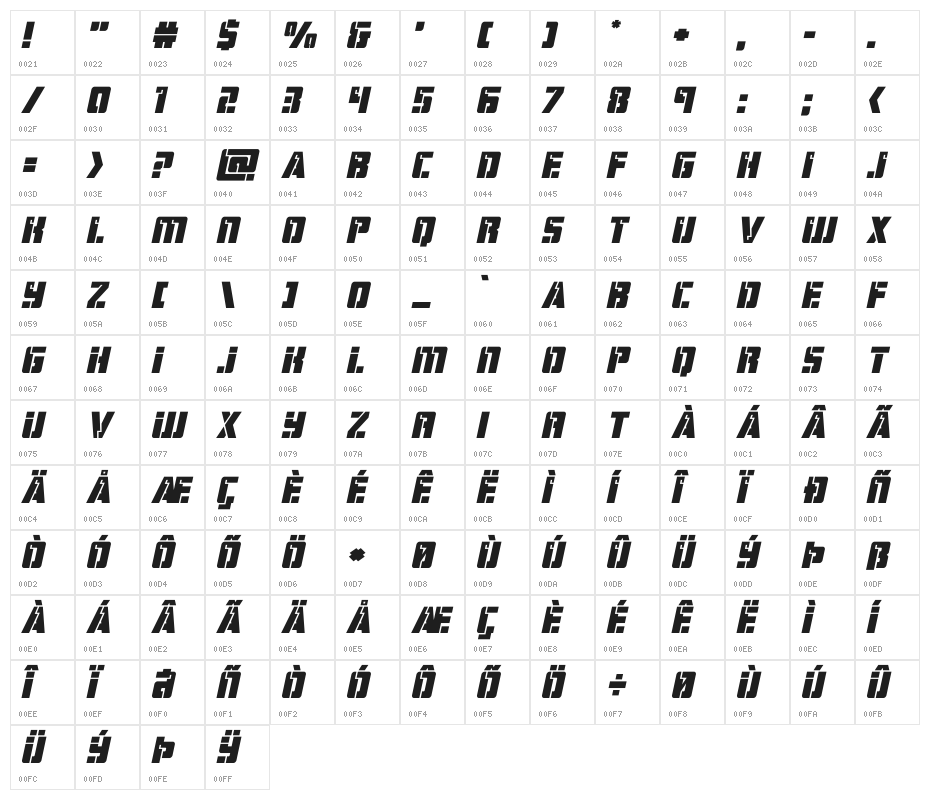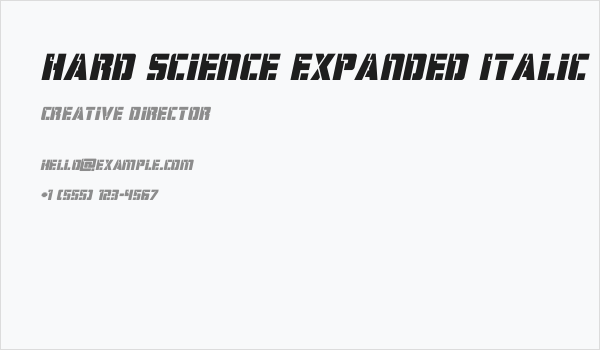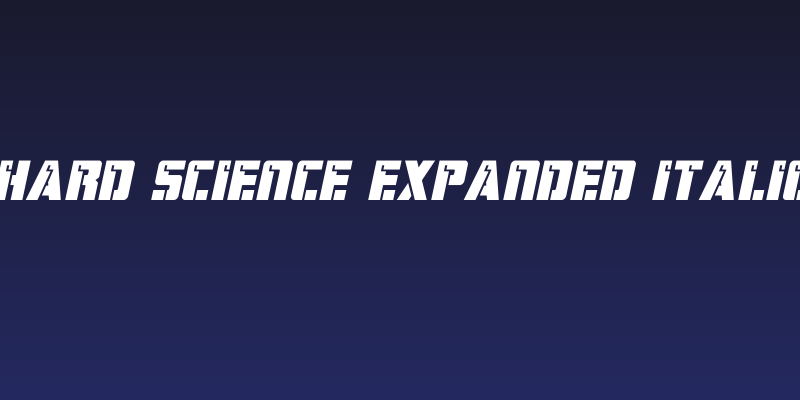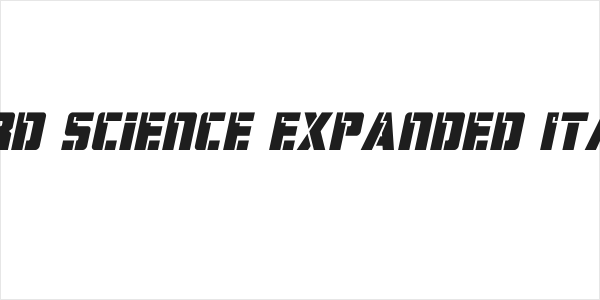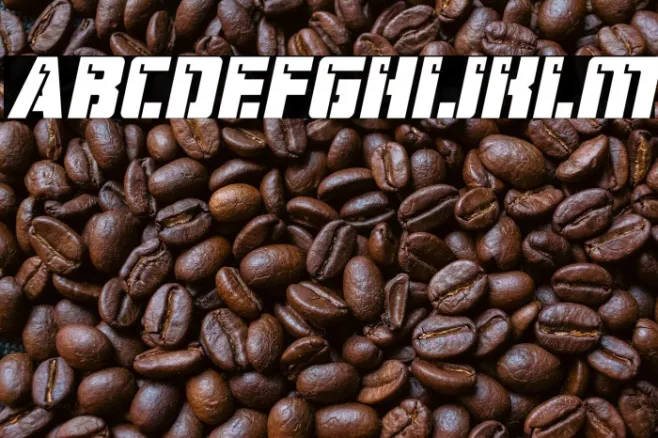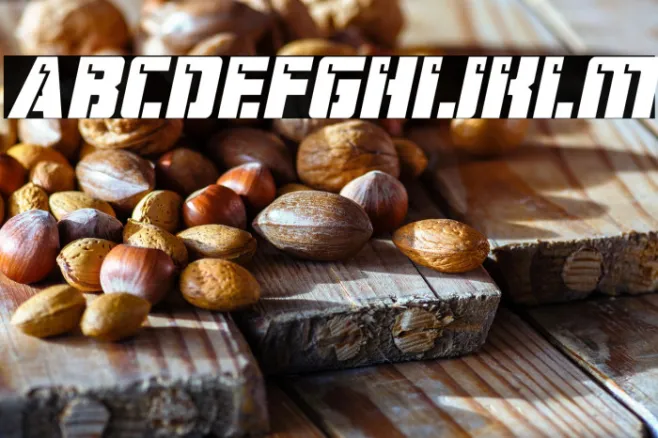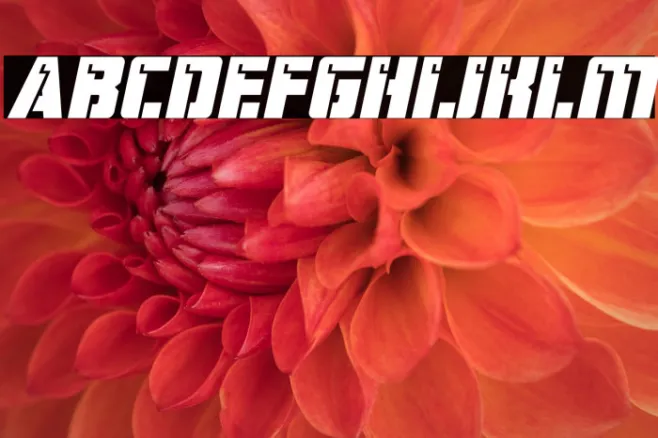
Hard Science Expanded Italic Font
Hard Science Expanded Italic Description
This font features a bold and dynamic design with an expanded and italicized style. The characters are heavily stylized, with sharp angles and a futuristic appearance. The uppercase and lowercase letters maintain a consistent slant, enhancing the italic effect. The numbers and special characters follow the same design principles, ensuring uniformity across all glyphs. The font's bold weight and expanded width make it highly visible and impactful, suitable for attention-grabbing designs.
| Proposed Projects | Ideal for sci-fi themed projects, technology branding, video game titles, and posters that require a modern and bold aesthetic. |